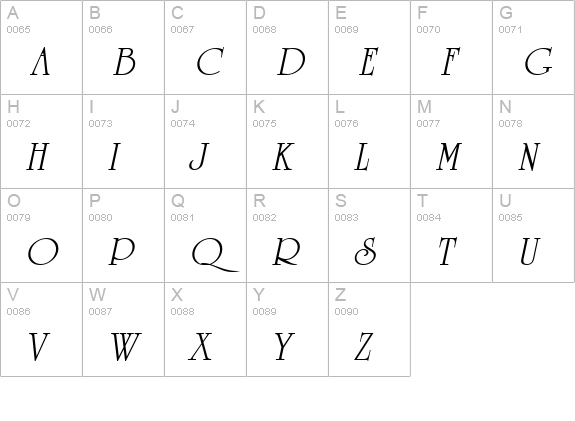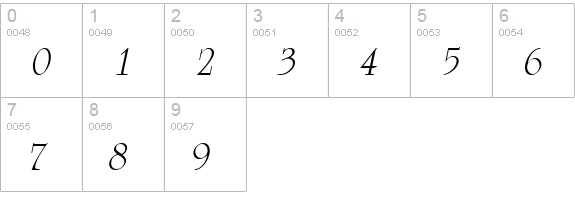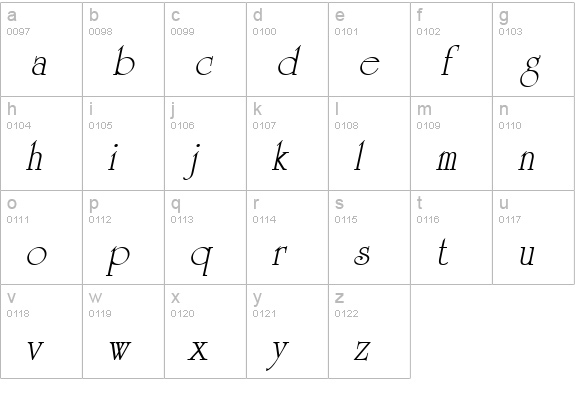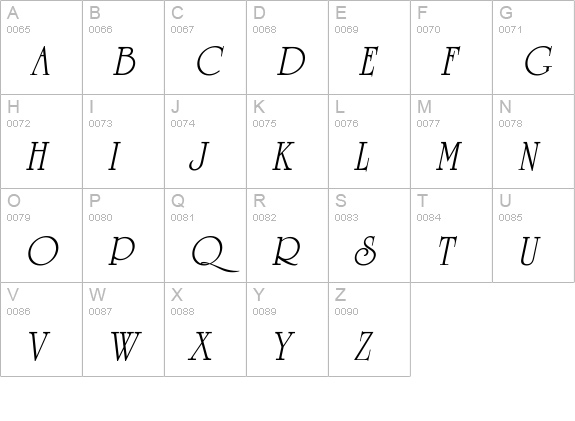
University Italic Font Details
University Italic is a distinctive, italic variant in the University typeface family \xE2\x80\x94 well suited to design and typography projects.
University Italic is a stunning and elegant font that effortlessly combines classic and modern design elements. Its sleek and sophisticated letterforms are imbued with a sense of timeless elegance, making it the perfect choice for any project or design that requires a touch of refinement and grace. With its slanted and slightly stylized characters, University Italic exudes a sense of dynamism and energy, while still maintaining an air of professionalism. Its smooth curves and balanced proportions create a harmonious visual rhythm that is pleasing to the eye. One of the most appealing aspects of University Italic is that it is available for free download at FontsMarket.com. This means that you can easily access this exceptional font and incorporate it into your projects without any cost or hassle. Whether you are a professional designer, a student, or simply someone with a passion for typography, the opportunity to freely access this font is a true gift. Being able to freely download University Italic opens up a world of possibilities for creativity and expression. Whether you are working on a personal project, designing a website, or creating marketing materials for your business, this font will add a touch of sophistication and professionalism that is sure to impress. Don't miss out on the opportunity to enhance your designs with the beauty and versatility of University Italic. Download it for free at FontsMarket.com and let your creativity soar.